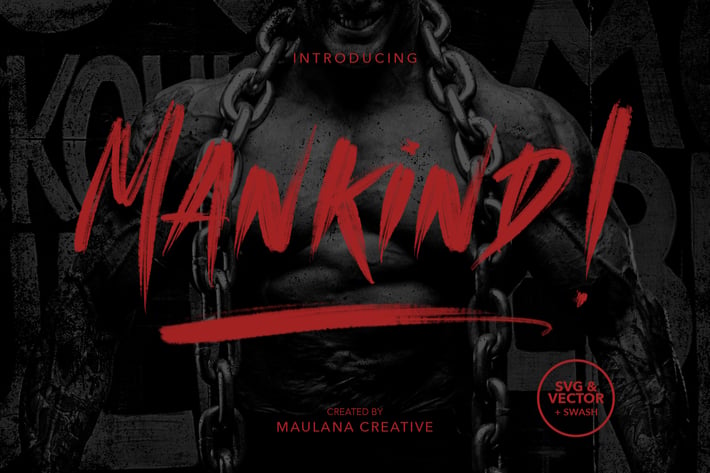
MANKIND - SVG Brush Font
Give your designs an authentic brush handcrafted feel. "MANKIND - SVG Brush Font" is perfectly suited to signature, stationery, logo, typography quotes, magazine or book cover, website header, flyer, clothing, branding, packaging design and more.